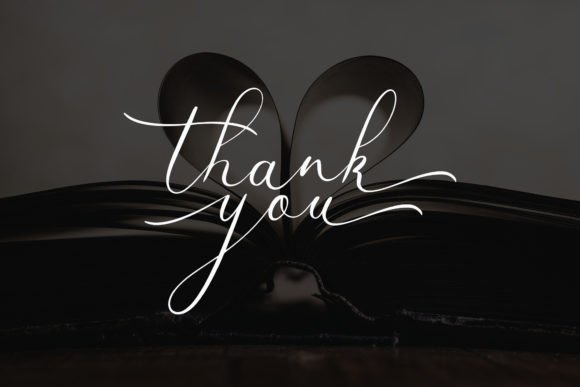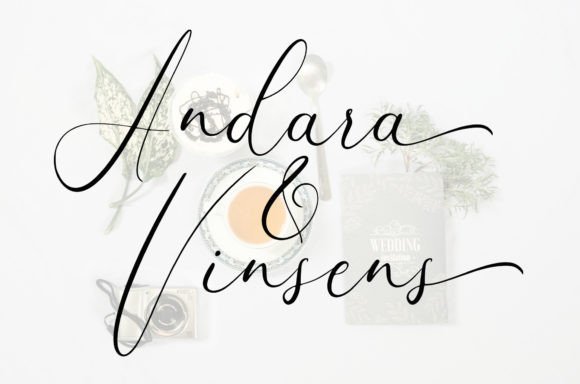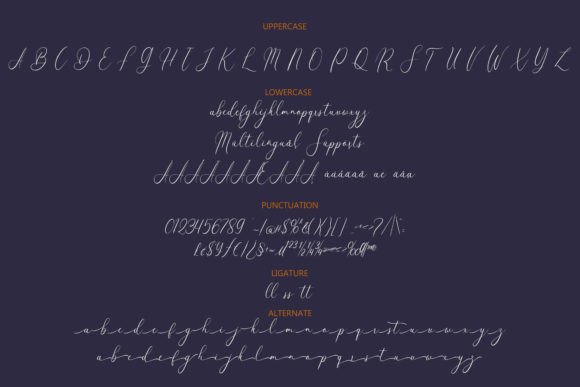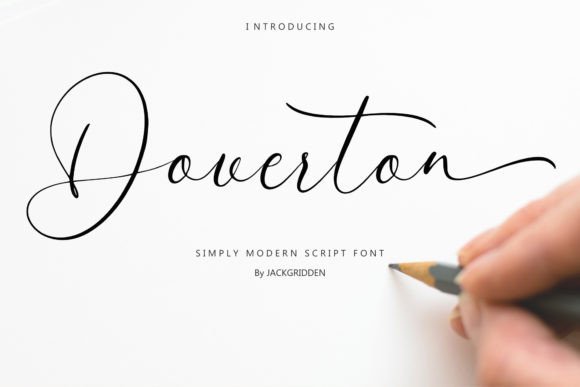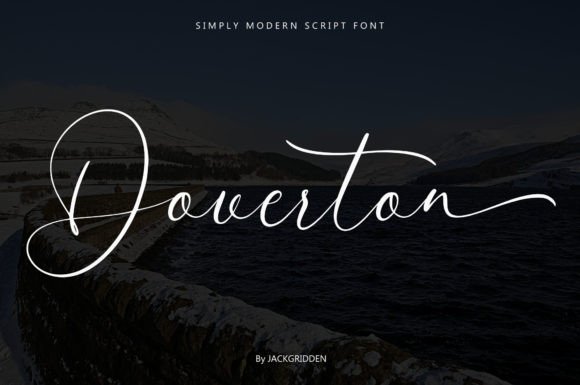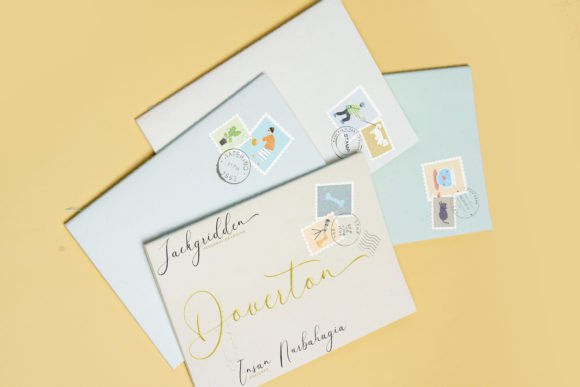
Introduction to Doverton Font
Have you ever stumbled upon a font that perfectly captures the essence of your creative vision? For many designers, that moment of serendipity is a rare and precious find. For those who have been searching for the perfect design resource, look no further than the Doverton Font – a stunning handwritten font that embodies the perfect blend of sophistication and warmth.
Whether you’re working on a branding project, crafting social media graphics, or designing invitations, Doverton Font’s unique style adds a personal touch that sets your work apart. With its flowing lines and elegant curves, this high-quality font is sure to elevate your designs and leave a lasting impression. The best part? You can download Doverton Font with a transparent background, giving you complete creative control over your projects.
Doverton Font
- Includes a wide range of characters, including uppercase and lowercase letters, numbers, and punctuation
- Unique characteristics include a modern, clean design and a versatile style suitable for a variety of applications
Honest Review: Doverton Font
What works well with the Doverton Font is its high quality and versatility. The font has a modern and elegant feel to it, making it perfect for creative projects that require a touch of sophistication. The transparent background is also a nice feature, allowing for seamless integration with various design elements.
The Doverton Font comes with a range of styles and weights, making it easy to find the perfect match for your design needs. Whether you’re working on a branding project or a promotional material, this font is sure to deliver.
Here are some of the key features that I appreciate about the Doverton Font:
- Versatile and modern feel
- Range of styles and weights
⚠️ One limitation I’ve noticed is that the font may not be suitable for extremely formal or traditional designs. However, for most creative projects, the Doverton Font is a great choice.
Overall, I’m impressed with the Doverton Font, and I would definitely recommend it to fellow designers. It’s a great addition to any design library, and its free download makes it an even more attractive option.
Tips for Getting the Most Out of Doverton Font
For optimal results, use the Doverton Font on a transparent background and experiment with different font sizes and colors.
Common use cases for the Doverton Font include logos, branding materials, and marketing materials.